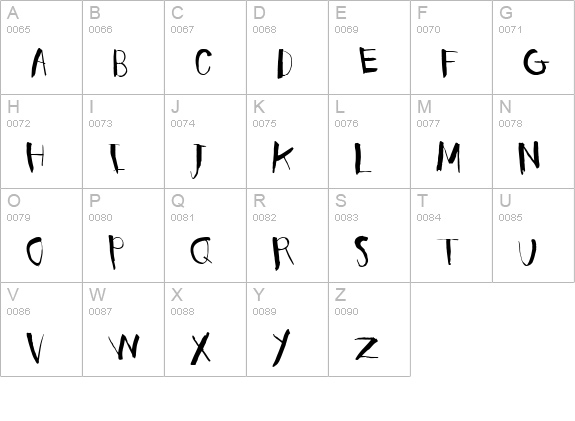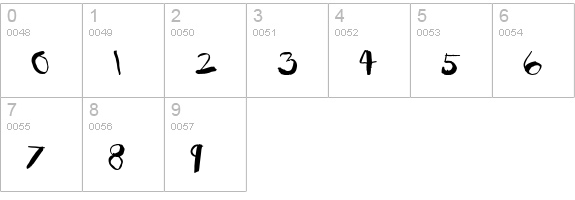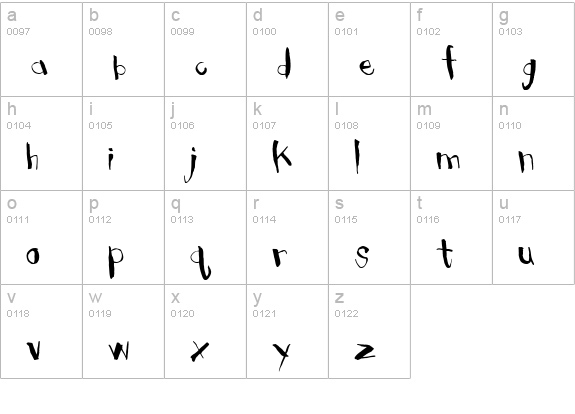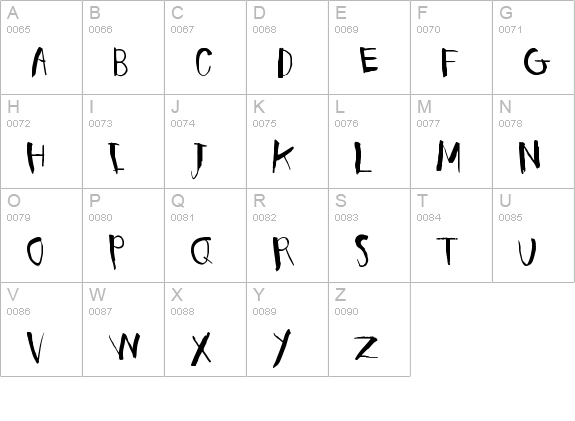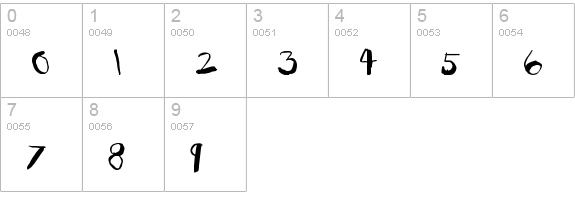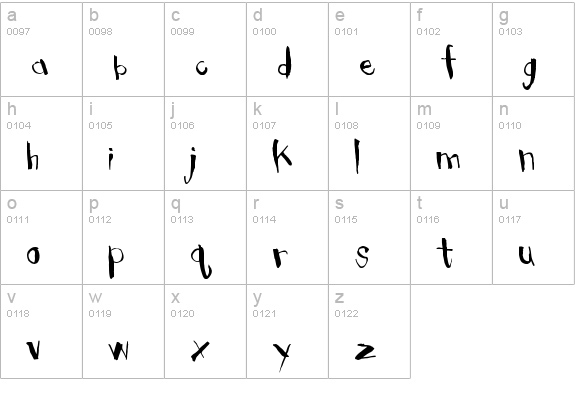
Clubhouse Font Details
Clubhouse font is a stylish and modern typeface that exudes elegance and sophistication. With its sleek lines and contemporary design, Clubhouse font is perfect for creating eye-catching designs that demand attention. Whether you're working on a branding project, website design, or social media graphics, this versatile font will add a touch of class to your work. The best part? Clubhouse font is completely free to download at FontsMarket.com. This means you can elevate your designs without breaking the bank. So why wait? Enhance your projects with the timeless beauty of Clubhouse font today.